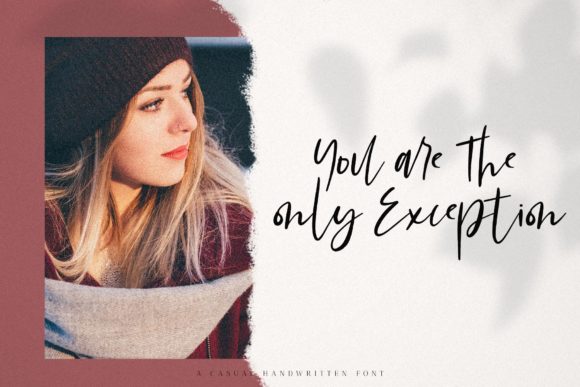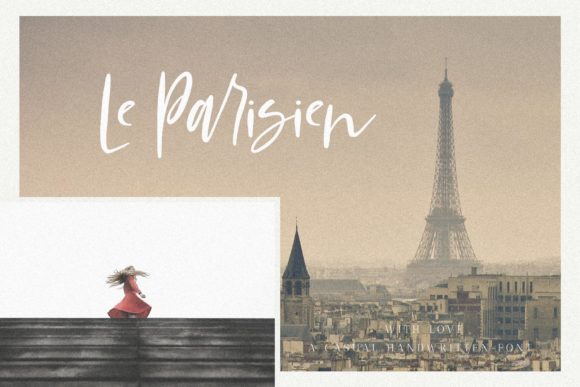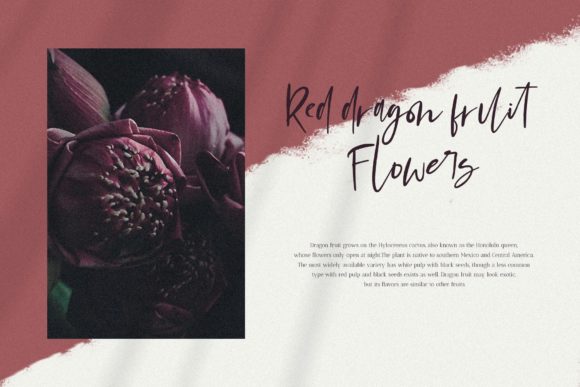
Introduction to Mondela Font
Mondela is a fun and playful script with a unique style.
Fall in love with its modern feel .
Mondela Font offers exceptional quality and versatility, making it a valuable addition to your design toolkit. Whether you’re creating for personal projects or commercial use, Mondela Font delivers professional results.